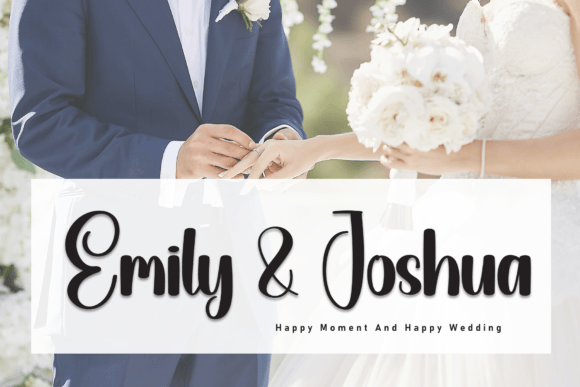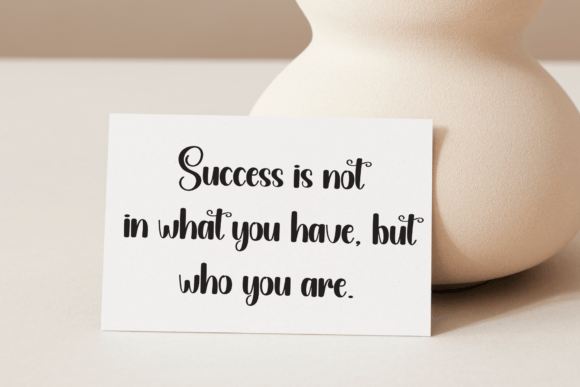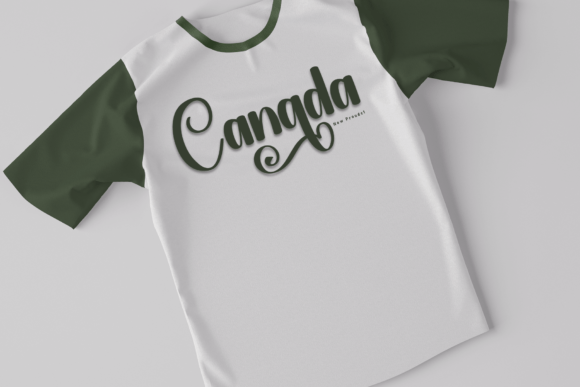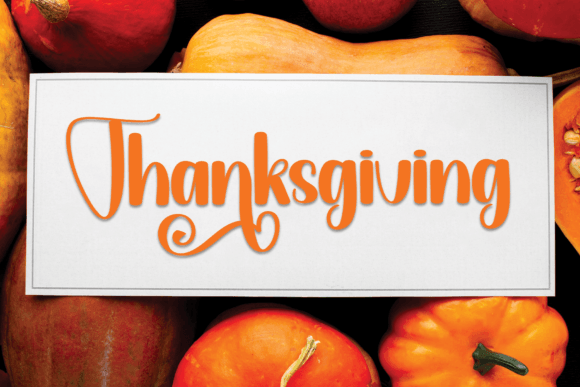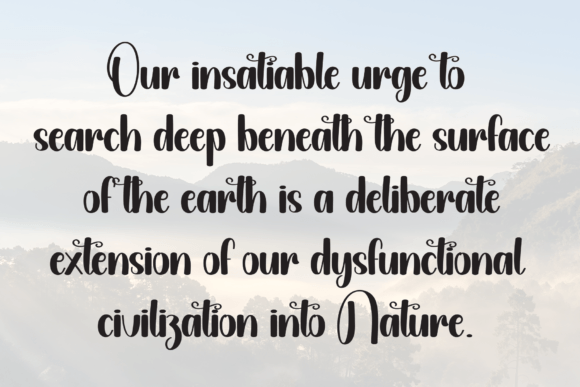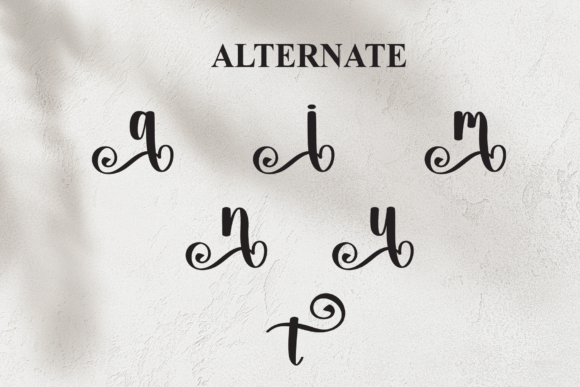
The Perfect Handwritten Companion: Unleash Your Creativity with Bethany Font
Have you ever sat down with a blank piece of paper, a pencil in hand, and felt the urge to create something beautiful? The blank page can be both intimidating and exhilarating, but with the right tools, the possibilities are endless. For designers, the search for the perfect font can be a daunting task, but what if we told you that you’ve been searching for it all along?
Meet Bethany Font, a sweet and friendly handwritten font that brings a touch of natural charm to any design. Its unique style makes it incredibly versatile, allowing you to unleash your creativity and bring your ideas to life. Whether you’re designing a wedding invitation, a children’s book, or a social media post, Bethany Font is the perfect companion to help you convey your message in a beautiful and personal way.
With Bethany Font, the only limit is your imagination. Its value lies in its ability to add a human touch to your designs, making them stand out in a crowded market. Whether you’re a seasoned designer or just starting out, Bethany Font is an essential tool to have in your arsenal.
Bethany Font Key Features
- Font Family: Bethany is a script font, known for its elegant and cursive design.
- Unique Characteristics: Features a flowing, handwritten style with swashes and flourishes, making it ideal for wedding invitations, greeting cards, and other special occasion designs.
- Language Support: Supports a wide range of languages, including Latin-based languages, Greek, and Cyrillic.
Bethany Font Review
As a designer, I was excited to dive into the Bethany font, and here’s my honest take on it.
- The Bethany font has a beautiful, elegant feel to it. It’s perfect for those who want a classic, sophisticated look.
- The font is highly legible, making it great for body text, headings, and even long blocks of text.
- The font family includes a range of weights and styles, allowing for a lot of flexibility in terms of typography.
- The Bethany font may be too traditional for some designers who prefer something more modern and edgy.
- The font can feel a bit too ornate for certain applications, such as digital displays or small text sizes.
- The font family may not include as many special characters or symbols as some other fonts.
Overall, the Bethany font is a solid choice for those who value classic typography and elegance. While it may not be the best fit for every design project, it’s definitely worth considering for those who want a timeless look.
Use Bethany Font for headings and titles to add a touch of elegance to your designs. Experiment with different font sizes and styles to create visual interest. Combine Bethany Font with other fonts to create a unique and eye-catching typography.
Bethany Font is perfect for creating beautiful wedding invitations, event branding, and marketing materials. It’s also great for adding a touch of sophistication to your resume, business cards, and other professional documents.